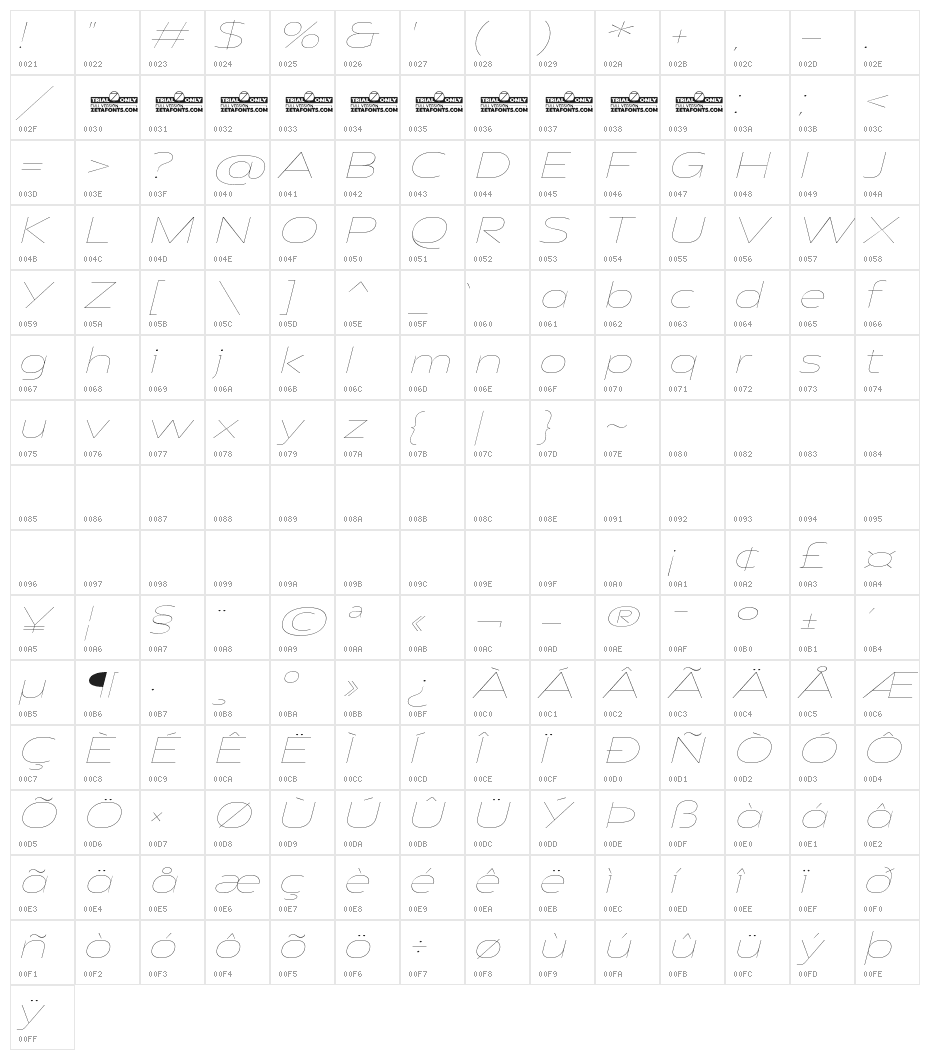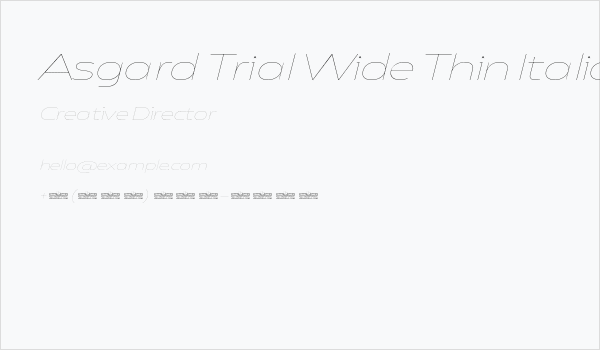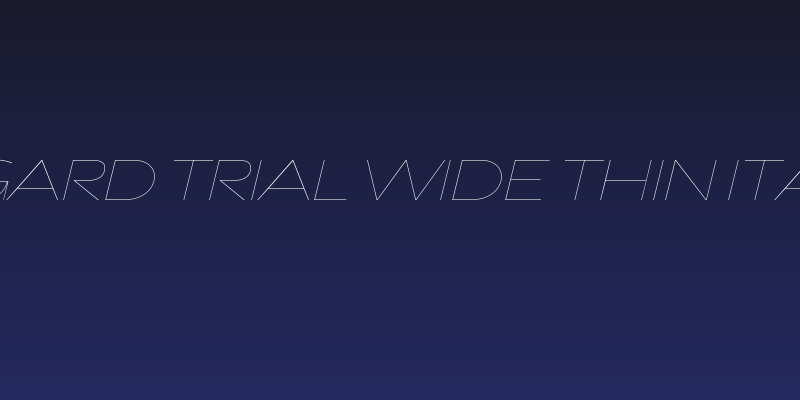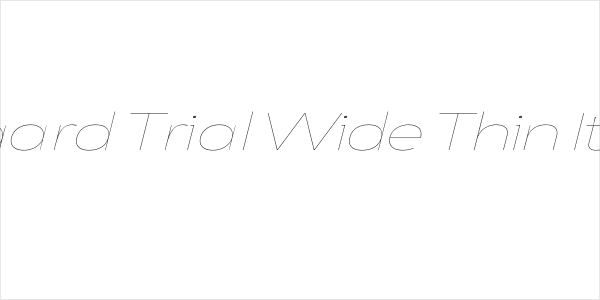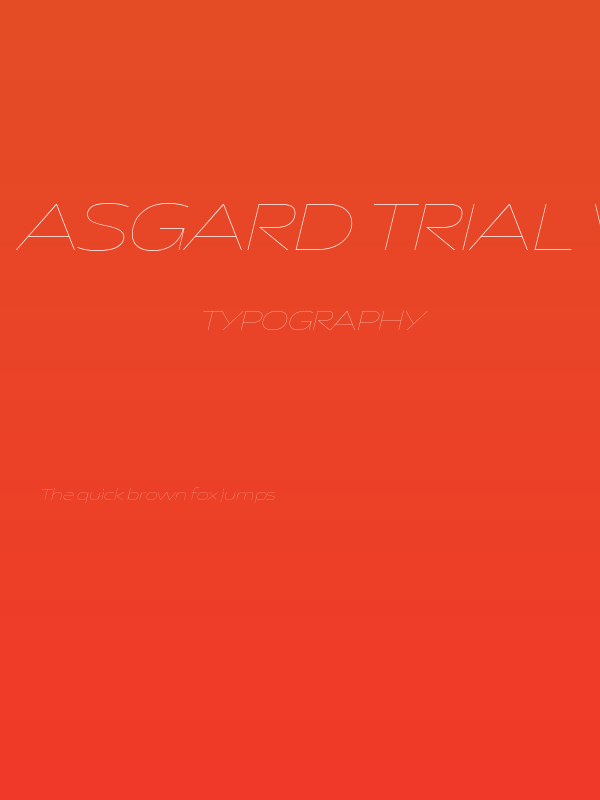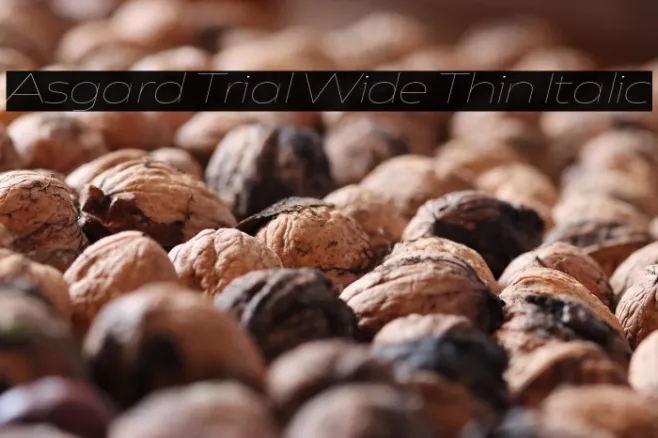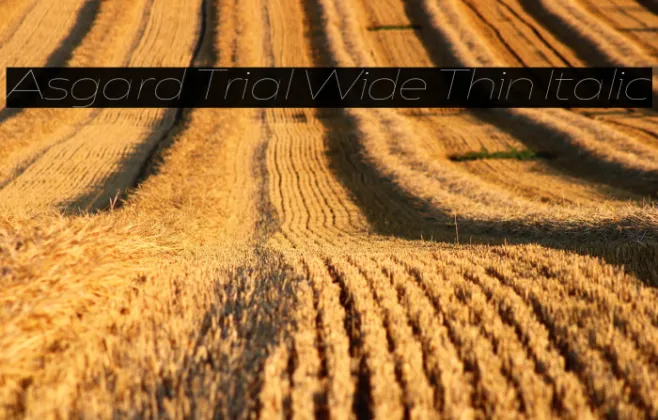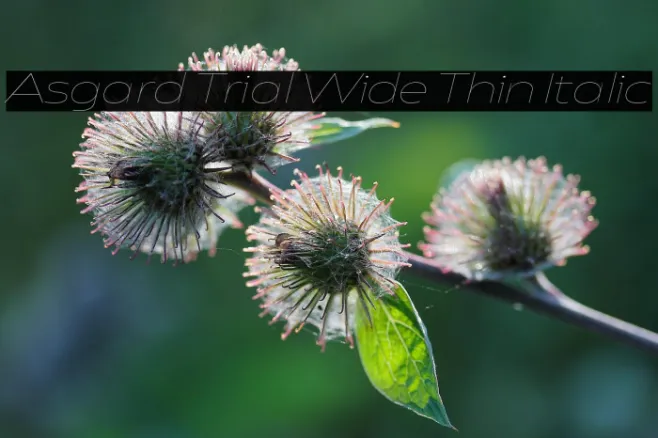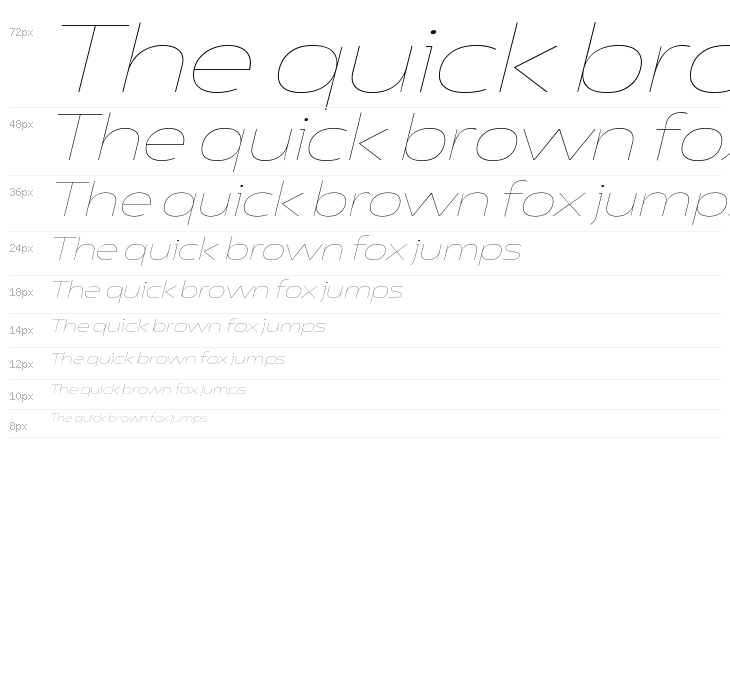
Asgard Trial Wide Thin Italic Font
Asgard Trial Wide Thin Italic Description
This font features a sleek, modern design with thin, elongated letterforms that convey a sense of elegance and sophistication. The characters are slightly slanted, giving them an italicized appearance, which adds a dynamic and fluid quality to the text. The wide spacing between the letters enhances readability while maintaining a minimalist aesthetic. The font's clean lines and geometric shapes make it suitable for contemporary design projects. It includes a full set of uppercase and lowercase letters, numerals, and a variety of special characters, ensuring versatility in usage.